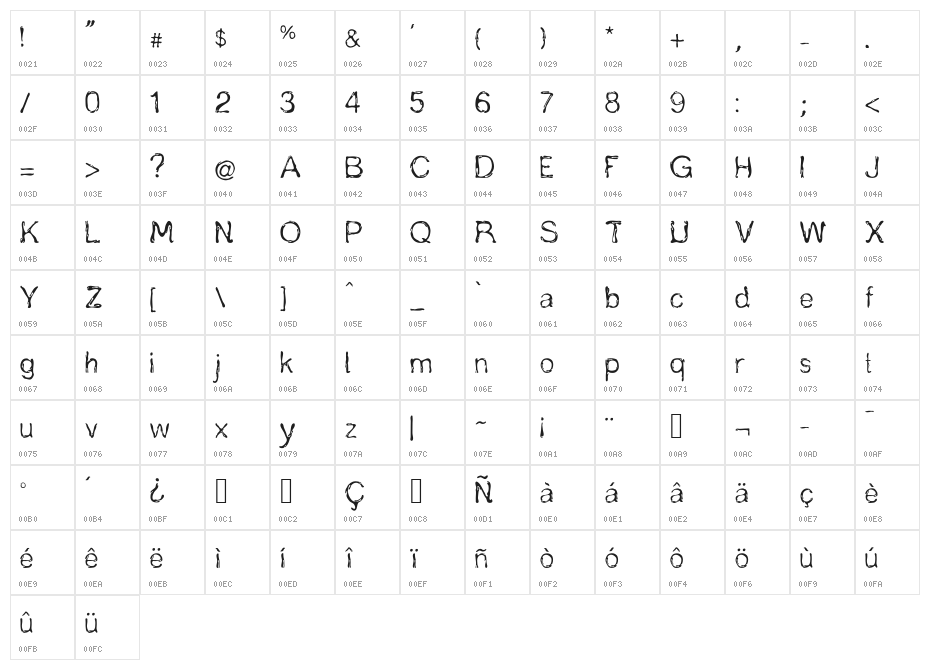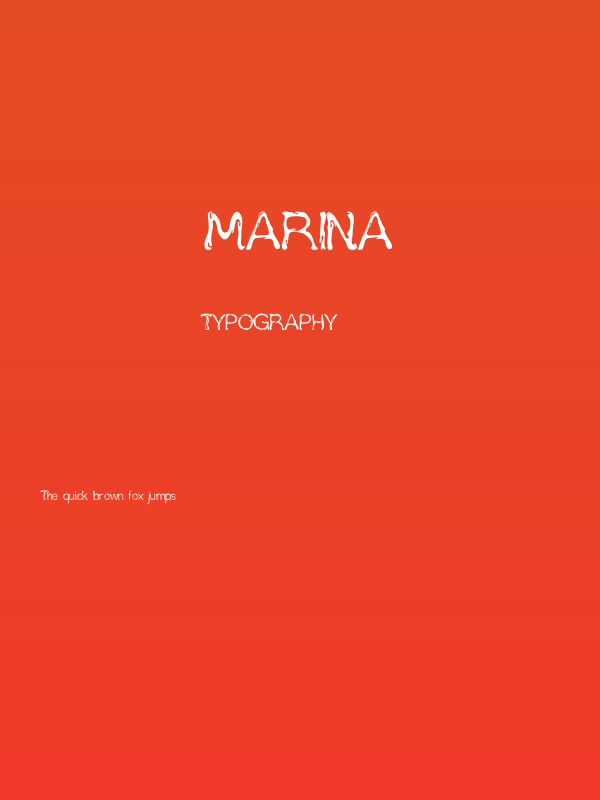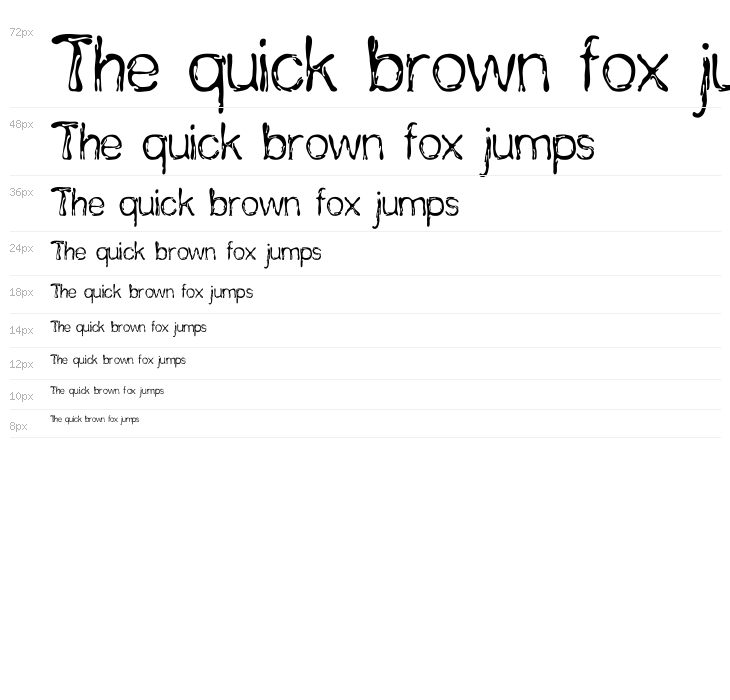
marina Font
marina Description
This font features a unique and artistic design with an organic, fluid appearance. The characters have a hand-drawn quality, with irregular edges and varying thicknesses that give them a dynamic and lively feel. The uppercase and lowercase letters maintain a consistent style, while the numbers and special characters integrate seamlessly into the overall aesthetic. This font's distinctive look makes it stand out, offering a creative and unconventional option for various design projects.
| Overall Style | Artistic, Organic |
| Proposed Projects | Ideal for creative projects such as album covers, posters, branding for artistic ventures, and unique invitations. |